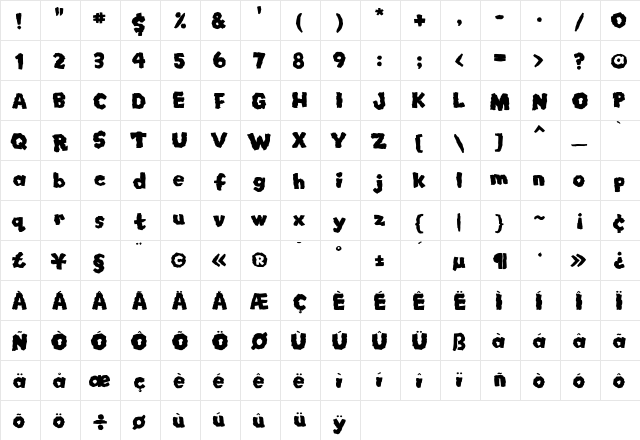
Mongo Medium
Design Context for Mongo Typeface
Mongo is a composed and adaptable typeface that performs quietly and consistently across a wide range of design contexts.